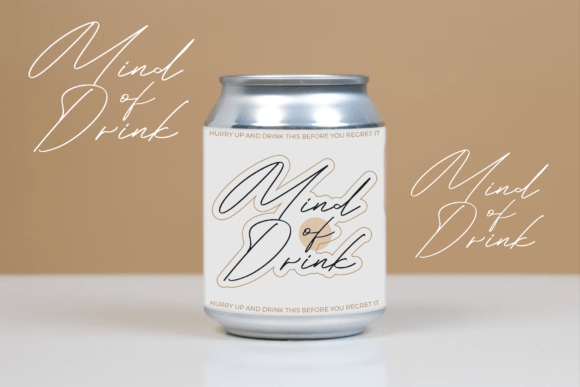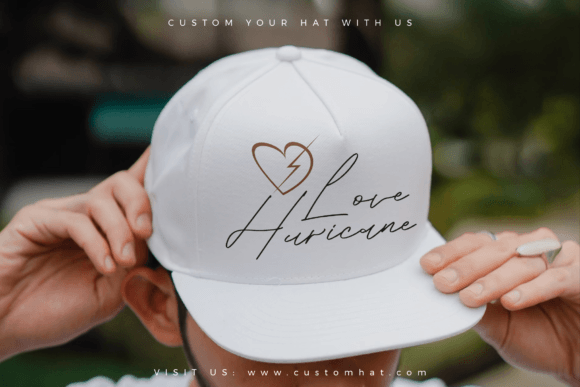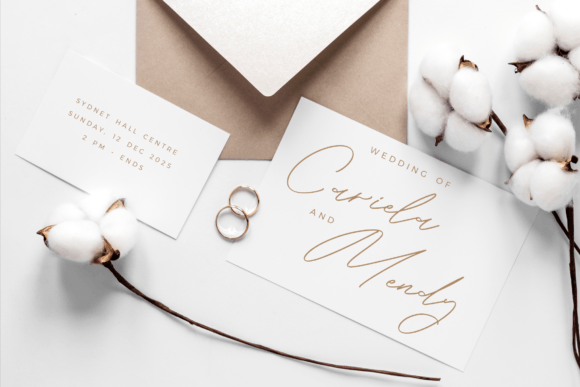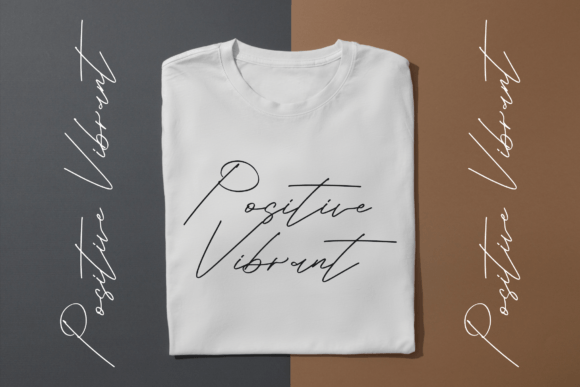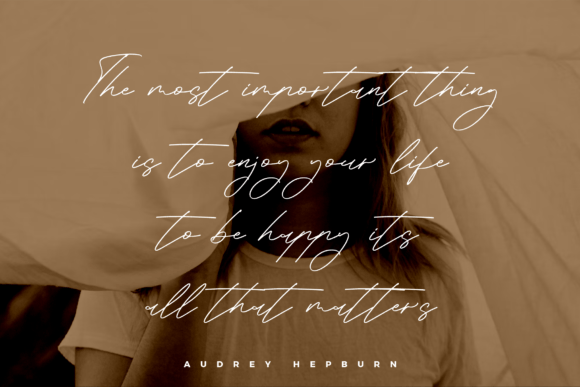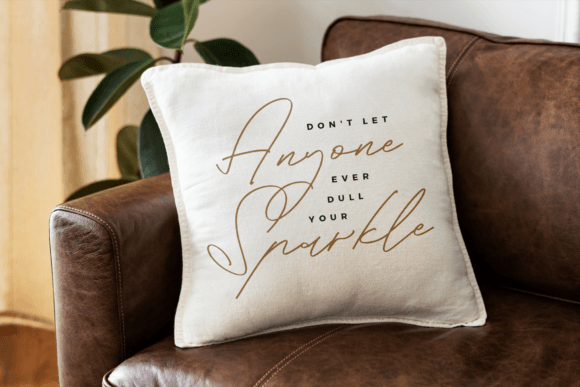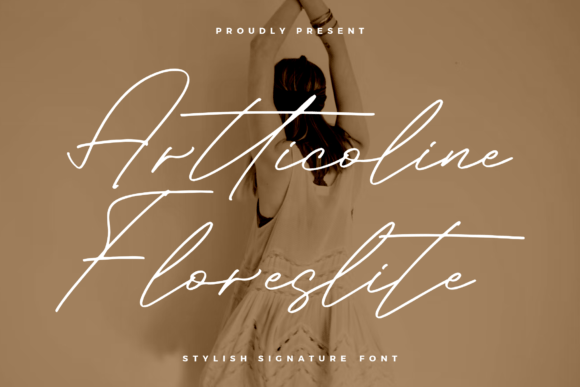
Introducing Artticoline Floreslite: The Ultimate Stylish Signature Font
Are you a designer or crafter looking for the perfect font to elevate your projects? Look no further than Artticoline Floreslite, a stunning script font from Letterfabric Studio. This versatile and stylish font is suitable for a wide range of applications, from logos and branding projects to homeware designs, product packaging, and more.
What is Artticoline Floreslite?
Artticoline Floreslite is a beautifully crafted script font that exudes elegance and sophistication. Its unique and flowing design makes it perfect for adding a touch of style to any project. Whether you’re working on a logo, invitation card, or product packaging, this font is sure to make your design stand out.
Key Features of Artticoline Floreslite
• Stylish Script Design: Artticoline Floreslite boasts a stunning script design that’s perfect for adding a touch of elegance to your projects.
• Versatile: This font is suitable for a wide range of applications, from logos and branding projects to homeware designs, product packaging, and more.
• High-Quality: This font is crafted with high-quality design principles, ensuring that it looks great in any size or resolution.
Uses for Artticoline Floreslite
Artticoline Floreslite is a versatile font that can be used for a wide range of projects, including:
• Logos and Branding Projects: Create a stunning logo or brand identity with Artticoline Floreslite.
• Homeware Designs: Add a touch of elegance to your homeware designs, such as ceramics, textiles, and more.
• Product Packaging: Make your product packaging stand out with Artticoline Floreslite.
• Mugs and Drinkware: Create beautiful and unique designs for mugs, water bottles, and other drinkware.
• Quotes and Posters: Add a touch of style to your quotes and posters with Artticoline Floreslite.
• Shopping Bags and T-Shirts: Create eye-catching designs for shopping bags, t-shirts, and other apparel.
• Book Covers and Name Cards: Use Artticoline Floreslite to create stunning book covers and name cards.
• Invitation Cards and Greeting Cards: Add a touch of elegance to your invitation cards and greeting cards.
• Labels and Photography: Use Artticoline Floreslite to create beautiful labels and watermarks for your photography projects.
Why Choose Artticoline Floreslite?
There are many reasons to choose Artticoline Floreslite for your next project. Here are just a few:
• Unique Design: Artticoline Floreslite has a unique and stylish design that will make your projects stand out.
• High-Quality: This font is crafted with high-quality design principles, ensuring that it looks great in any size or resolution.
• Versatile: This font can be used for a wide range of applications, making it a great addition to any design library.
Artticoline Floreslite is a stunning script font from Letterfabric Studio that’s perfect for designers and crafters looking to add a touch of elegance to their projects. With its unique and flowing design, this font is suitable for a wide range of applications, from logos and branding projects to homeware designs, product packaging, and more. Whether you’re a seasoned designer or just starting out, Artticoline Floreslite is a great choice for any project that needs a beautiful script taste.